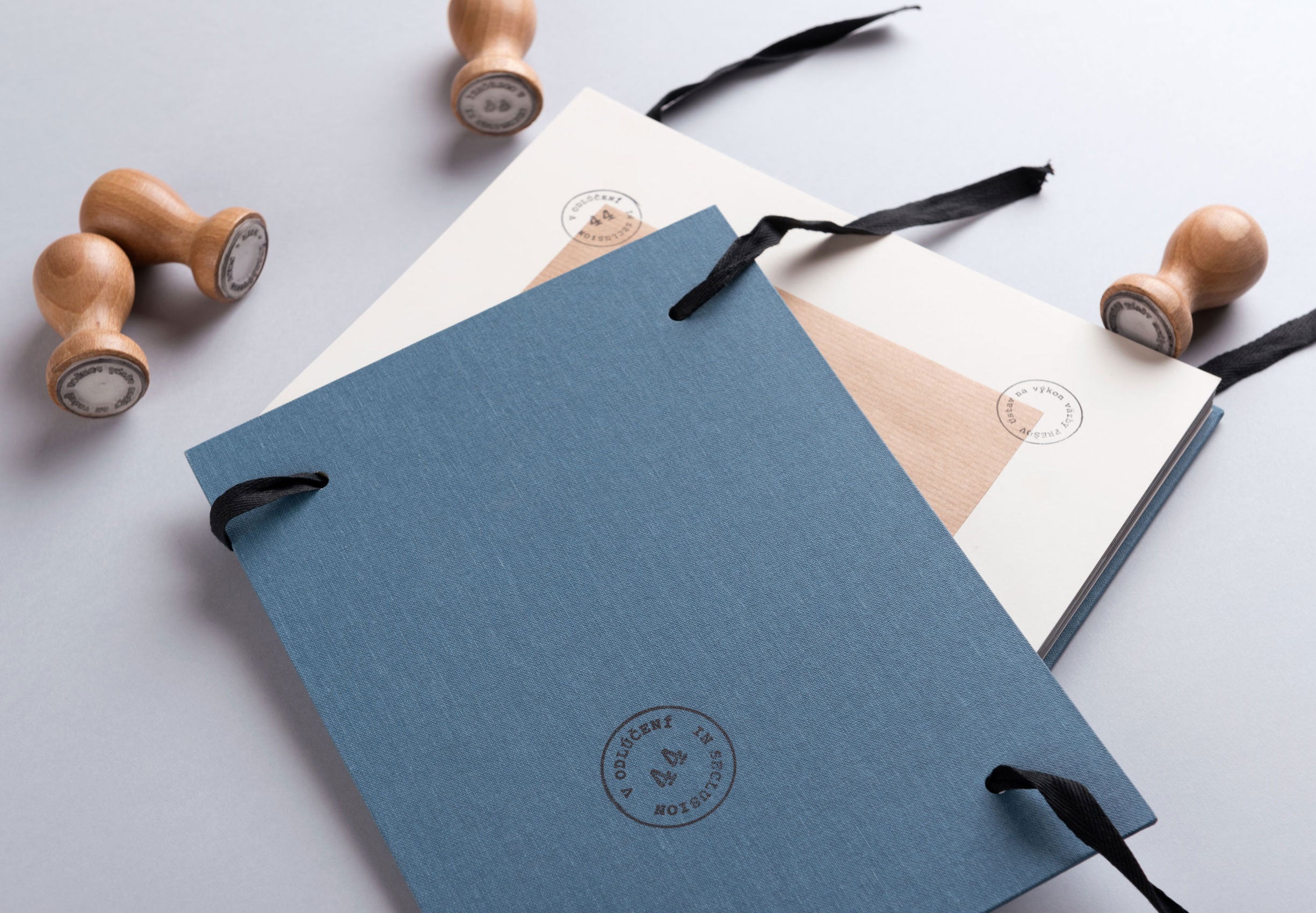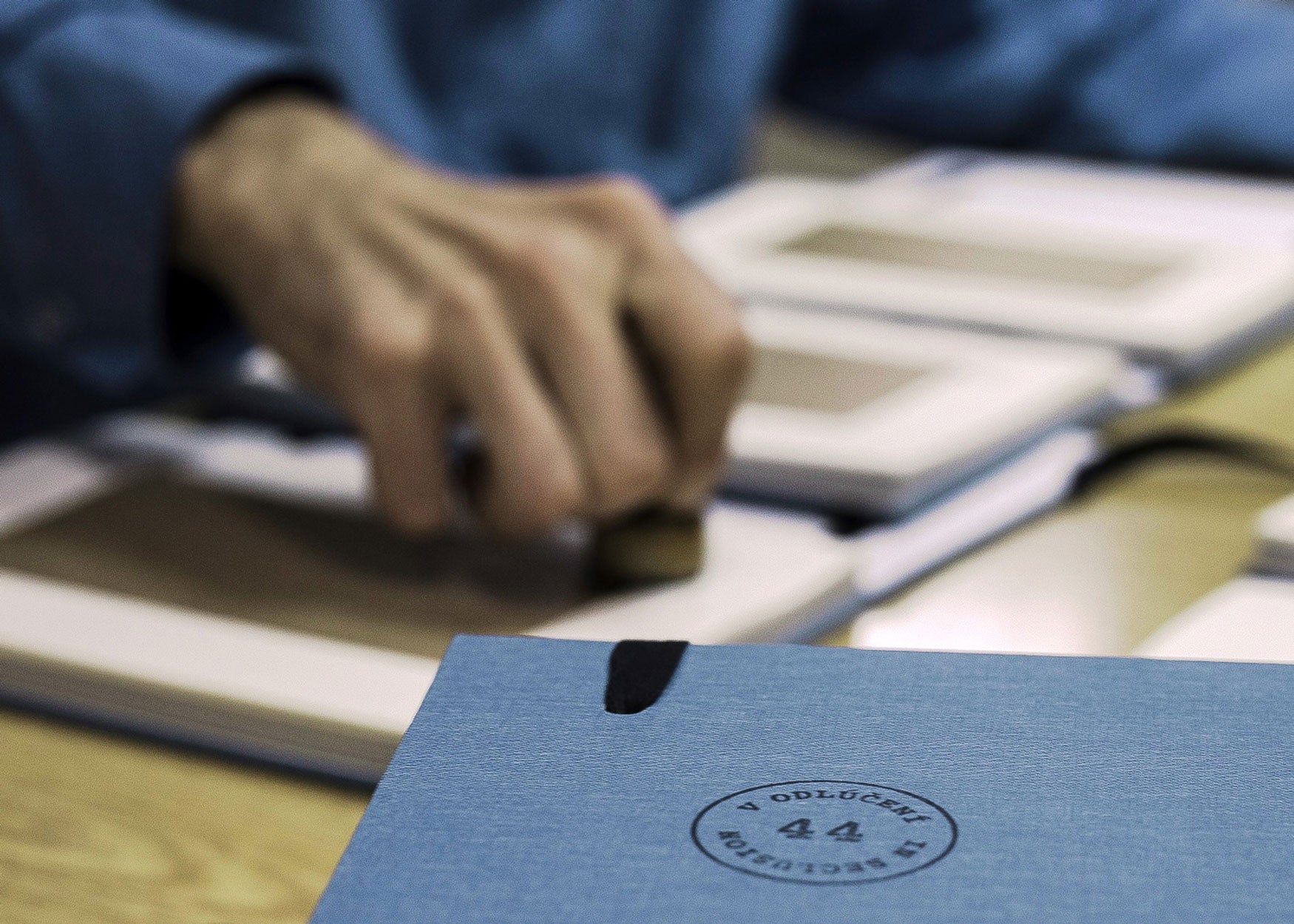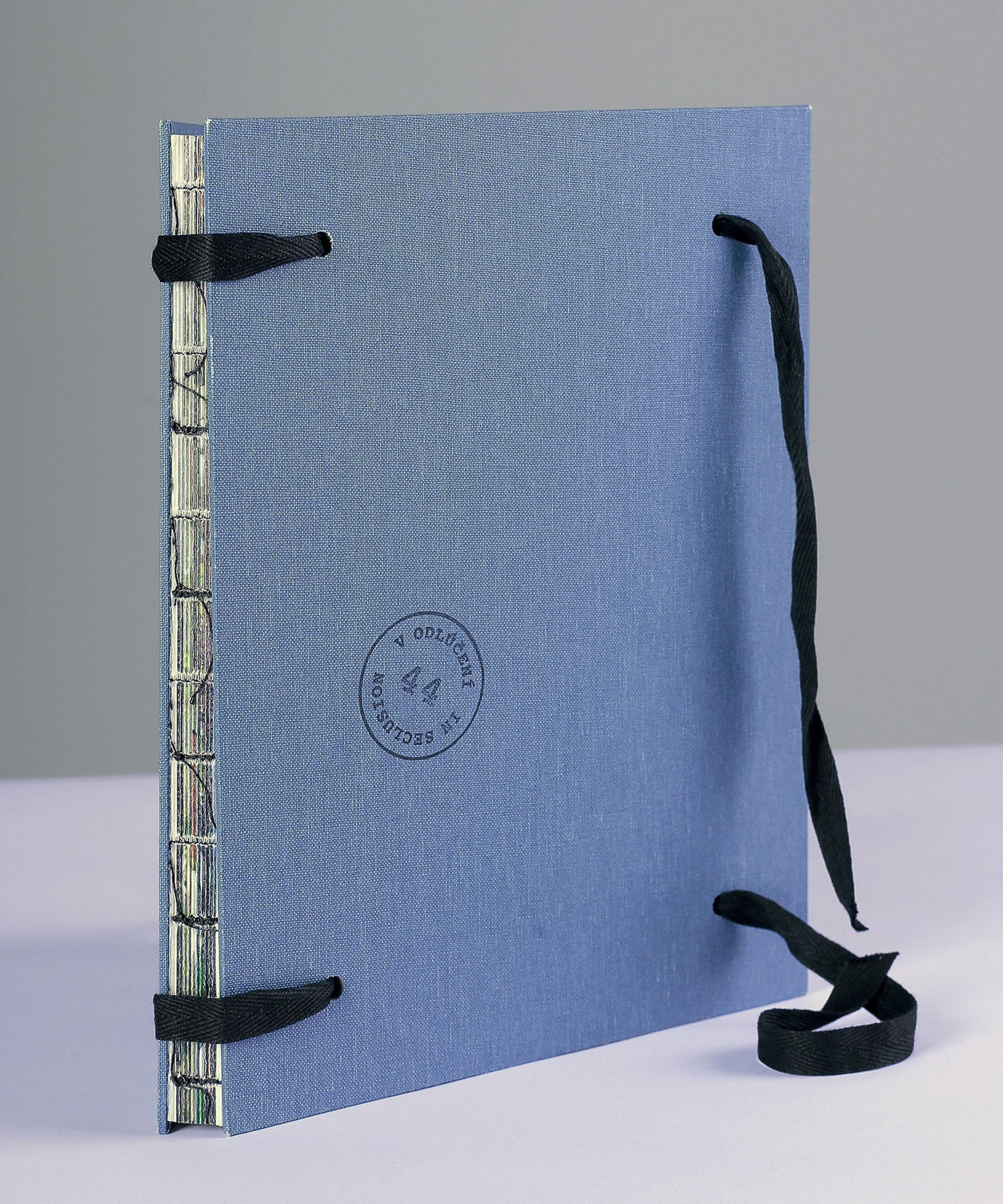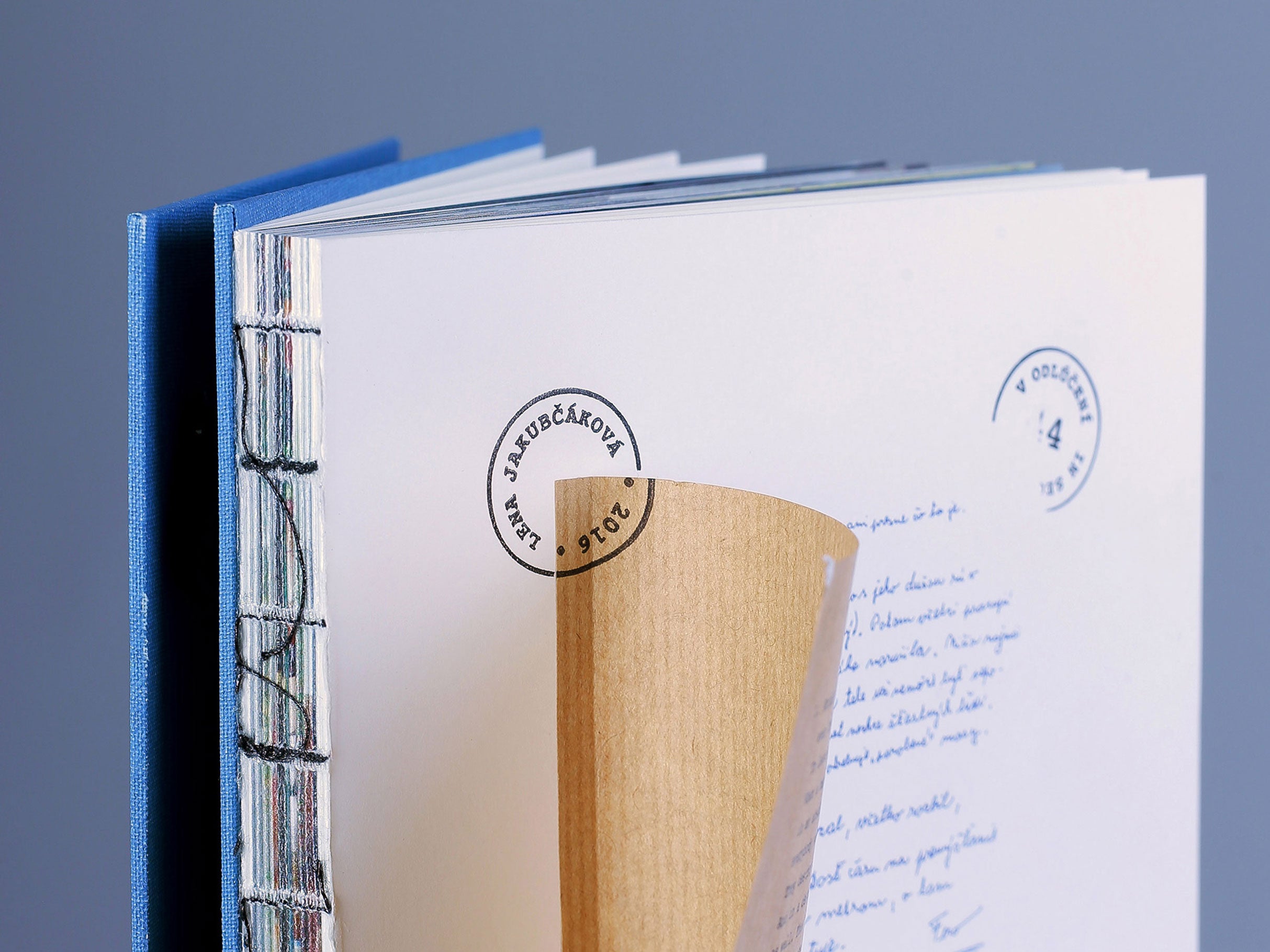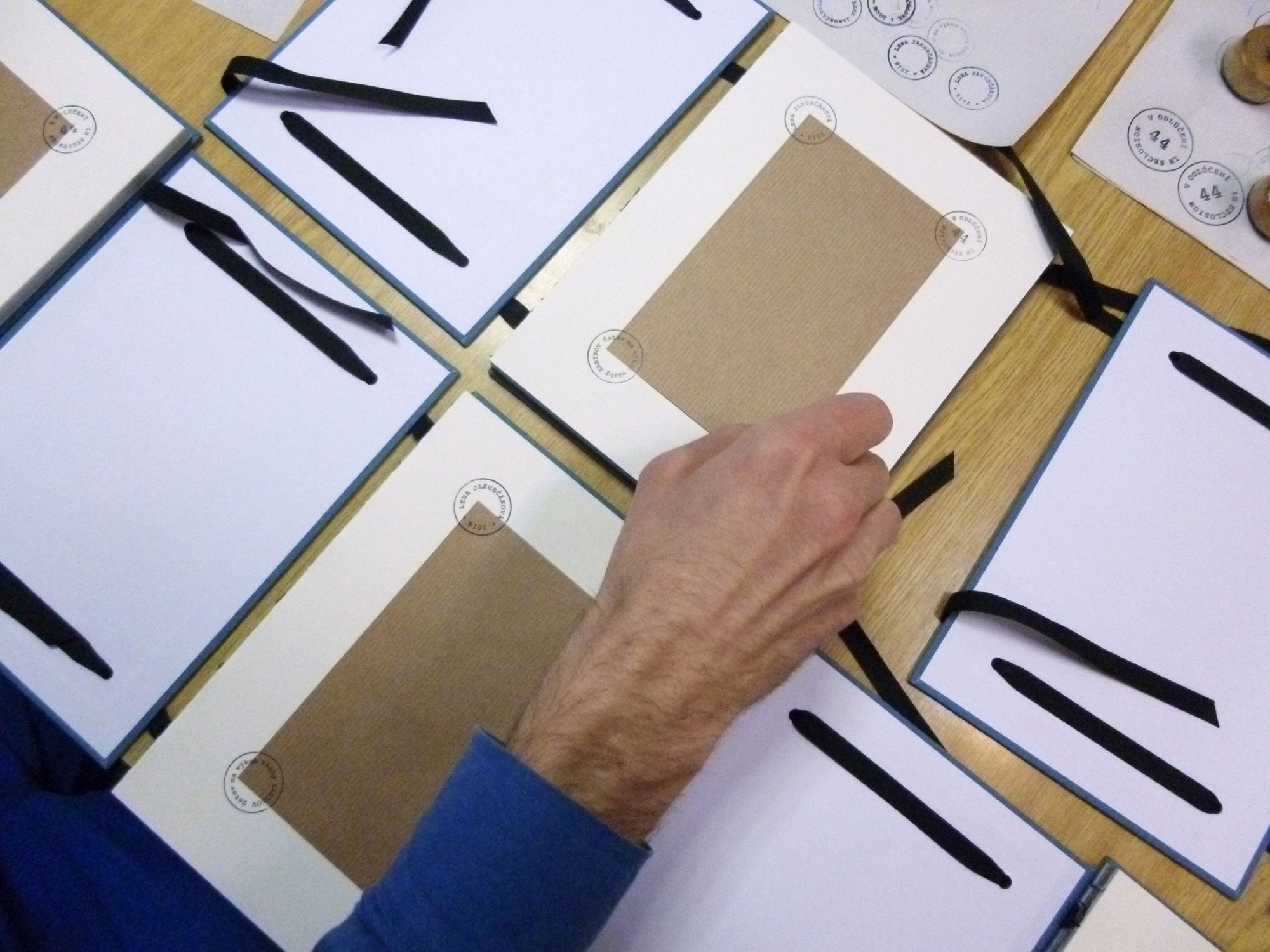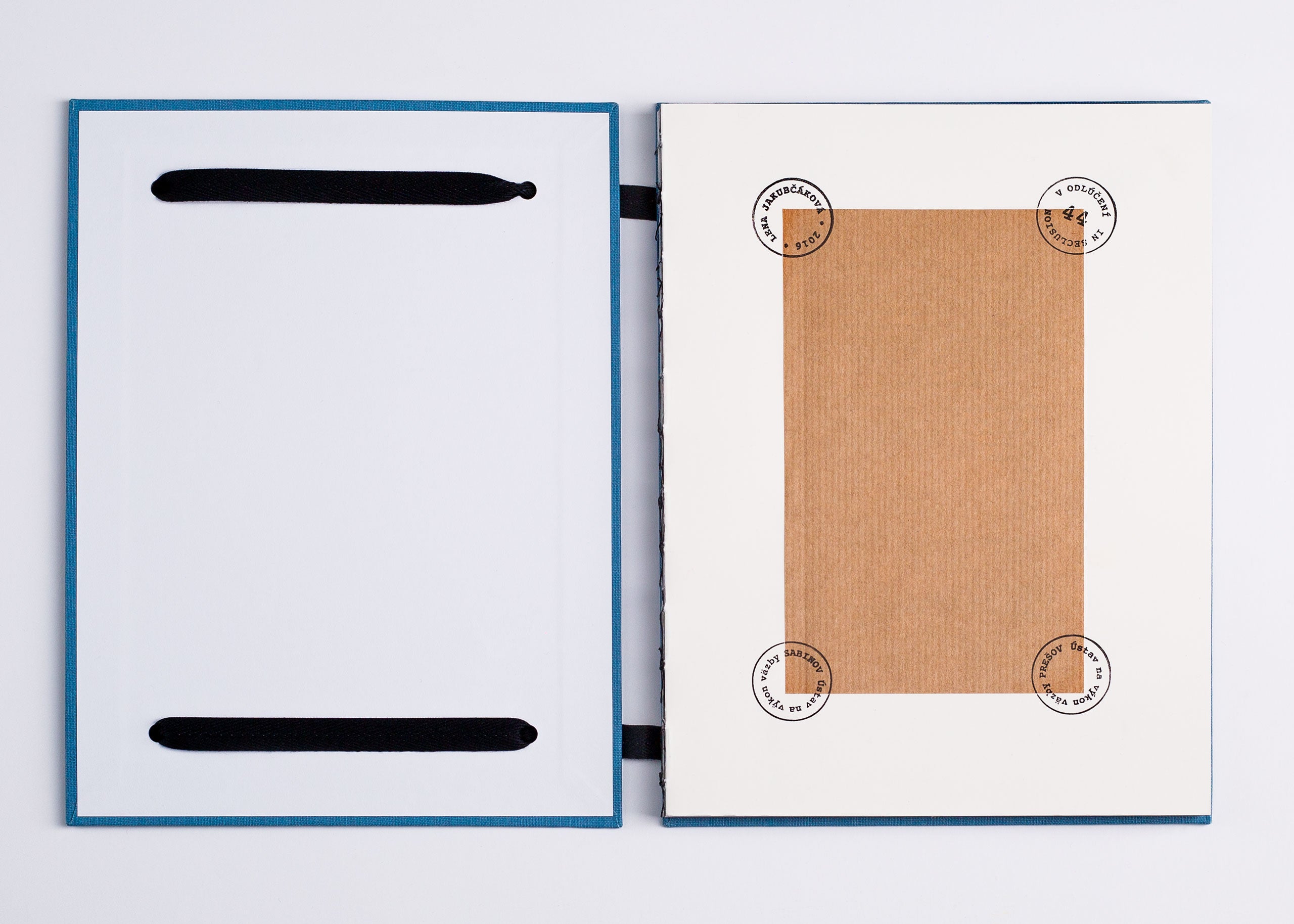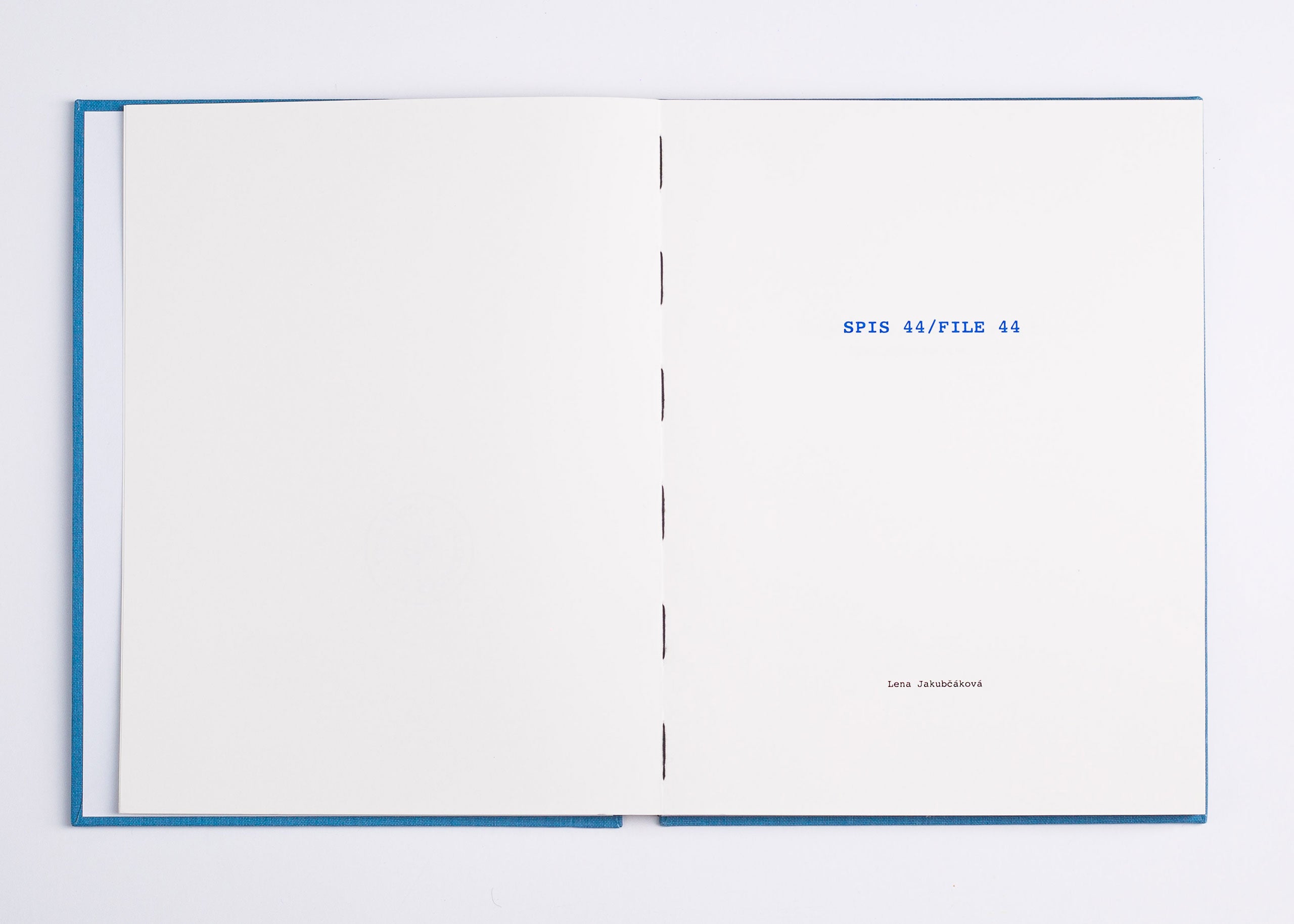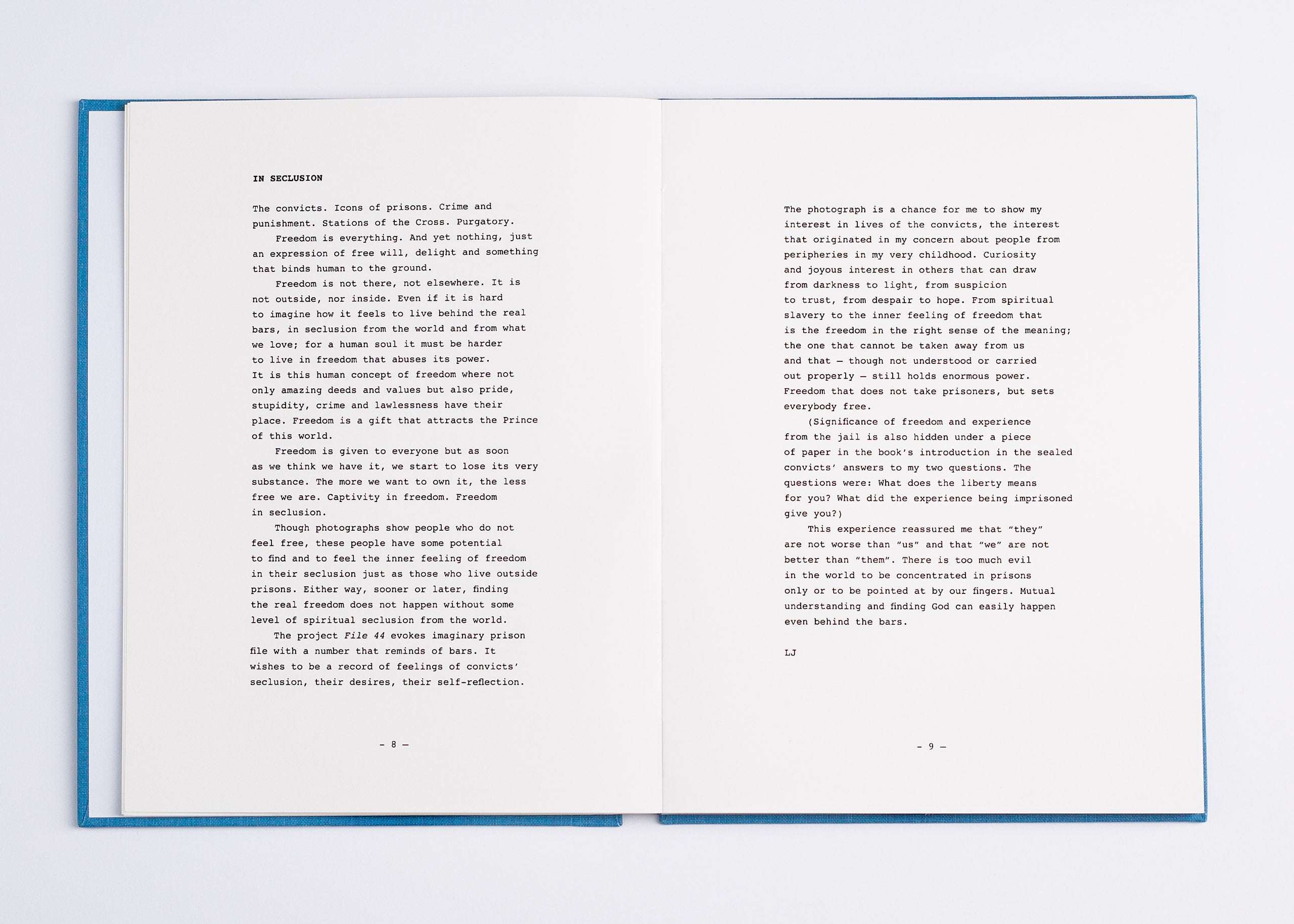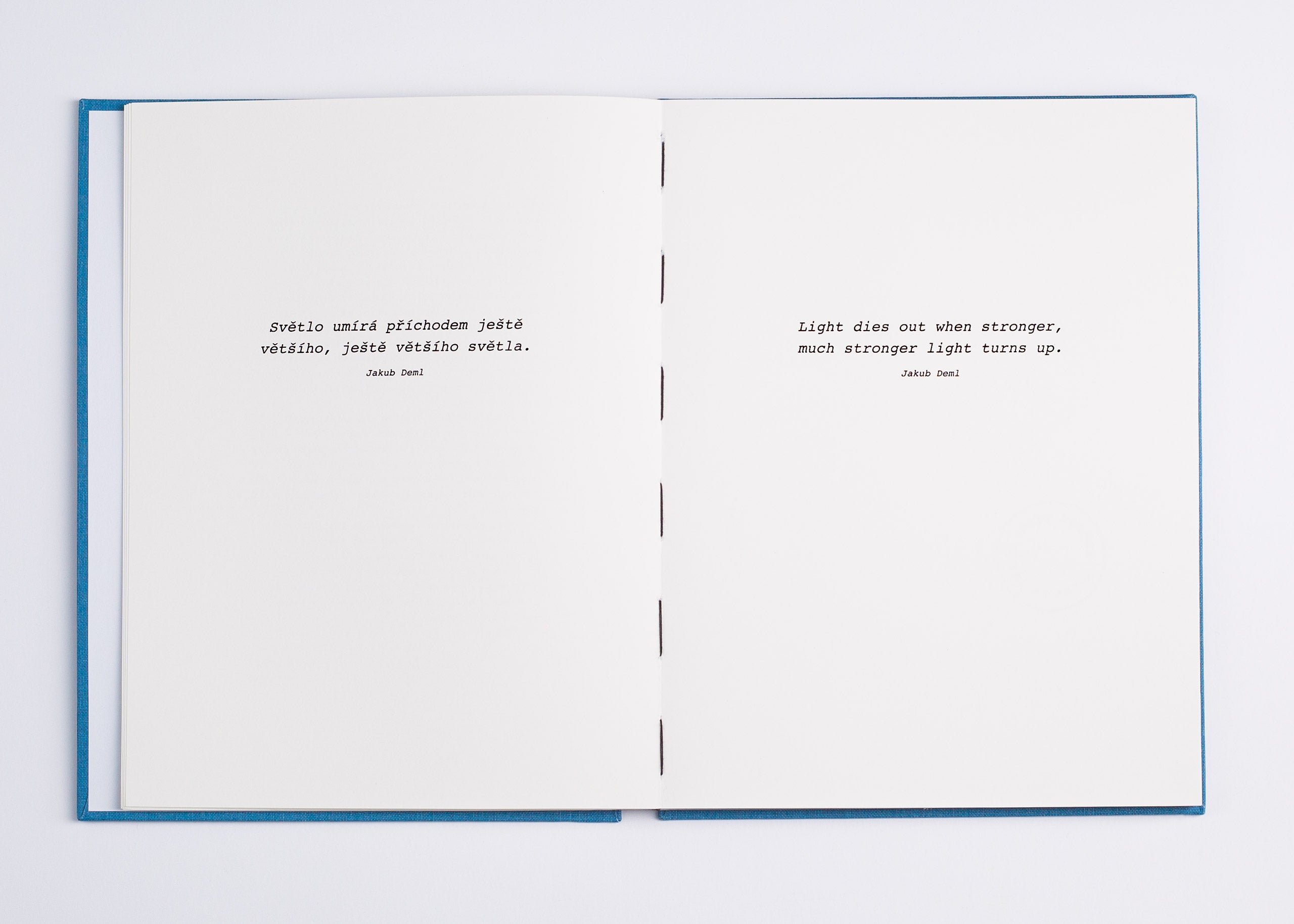
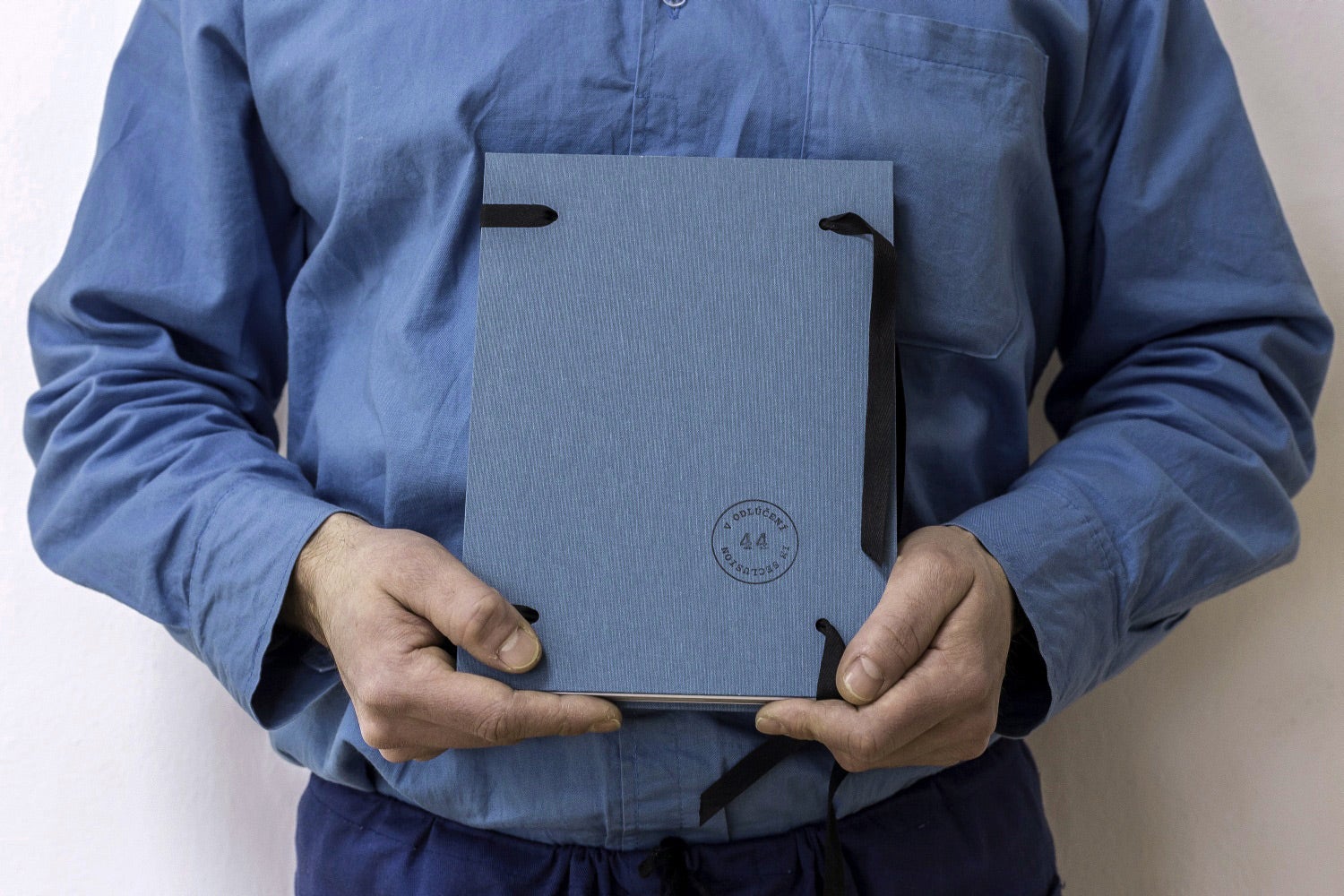
An authorial book by the photographer Lena Jakubčáková is a collection of photographs from Slovak prisons. The binding, the cover and the typography is designed to evoke an imaginary prison case file. The minimalist design with blue fabric on the cover refers to the color of prison uniforms. The title page hides a sealed message with thoughts of the convicts on freedom. Each book is unique, with authentic seal stamps that the convicts made directly in prison. The publication had a launch ceremony in the Detention Centre in Košice, with the presence of the convicted.